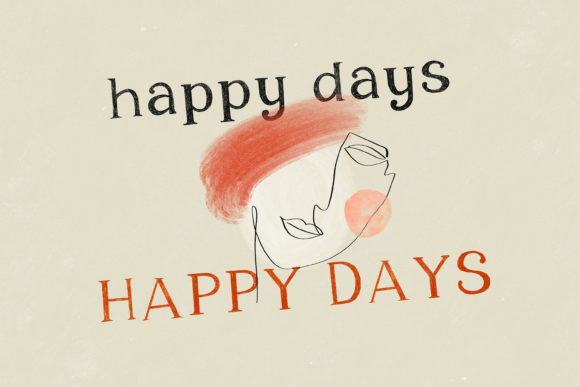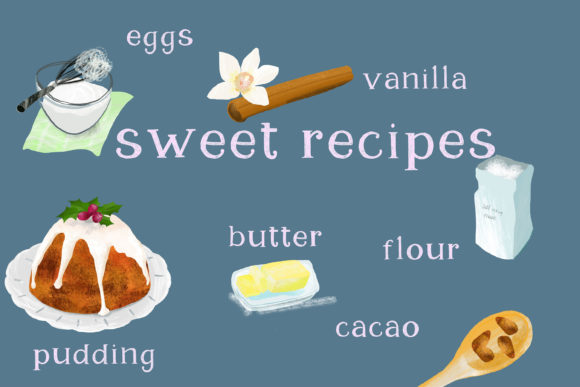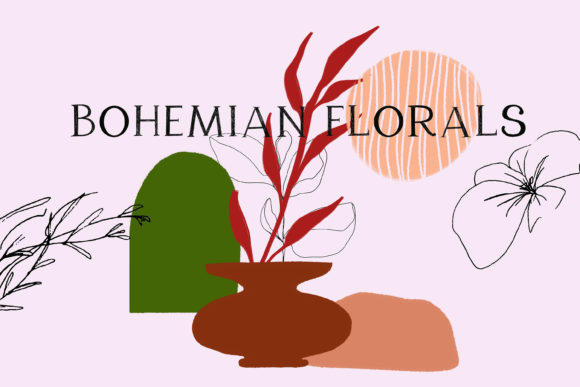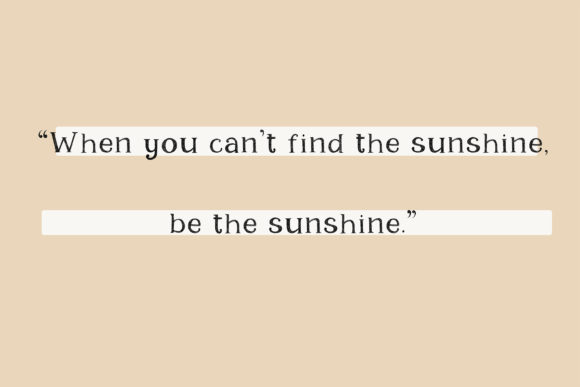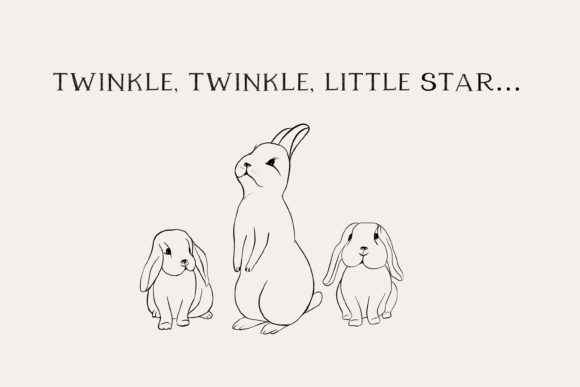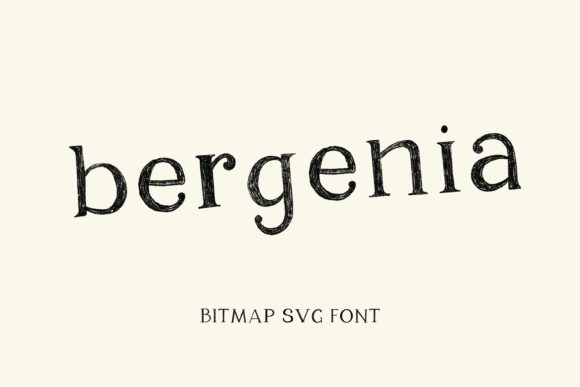
Bergenia Font: Elevate Your Design with a Cool and Assertive Serif
Bergenia is a modern serif font that exudes confidence and sophistication. With its simple yet striking design, this font is perfect for designers and crafters looking to make a statement. In this article, we’ll dive into the world of Bergenia, exploring its features, benefits, and uses, and why it’s a must-have for any creative project.
The Power of Bergenia
Bergenia is a cool and assertive serif font that instantly elevates your design. Its clean lines, precise curves, and balanced proportions create a strong visual effect that’s hard to ignore. Whether you’re working on a logo, branding, or marketing materials, Bergenia helps you make a lasting impression. Its unique character set and versatile style make it suitable for a wide range of applications, from digital media to print.
Key Features of Bergenia
- Simple yet striking design: Bergenia’s minimalist approach makes it easy to read and recognize, while its distinctive features add a touch of elegance.
- Cool and assertive: This font exudes confidence and sophistication, making it perfect for designs that require a strong personality.
- Serif style: Bergenia’s classic serif design adds a touch of tradition and authority to your text, making it ideal for formal and informal projects alike.
- Versatile: Use Bergenia for a wide range of applications, from digital media to print, and from logos to headlines.
Benefits of Using Bergenia
So, why choose Bergenia for your next project? Here are just a few benefits of using this amazing font:
- Instant appeal: Bergenia’s strong visual effect instantly makes your creation more appealing than others.
- Easy to read: Bergenia’s clean design and balanced proportions make it easy to read, even at small sizes.
- Unique character: Bergenia’s distinctive features add a touch of personality to your text, setting it apart from more generic fonts.
Who Can Use Bergenia?
Bergenia is perfect for a wide range of designers and crafters, including:
- Graphic designers: Use Bergenia for logos, branding, and marketing materials that require a strong visual effect.
- Digital artists: Add Bergenia to your digital art projects, such as illustrations, comics, and animations.
- Crafters: Use Bergenia for handmade projects, such as card making, scrapbooking, and journaling.
- Web designers: Incorporate Bergenia into your web designs for a unique and stylish look.
How to Use Bergenia
Using Bergenia is easy! Here are a few tips to get you started:
- Pair with other fonts: Combine Bergenia with other fonts to create a unique and stylish look.
- Experiment with sizes: Use Bergenia at different sizes to create visual interest and hierarchy.
- Play with colors: Try Bergenia with different colors to add personality and style to your design.
Bergenia is a powerful and versatile serif font that’s perfect for designers and crafters looking to make a statement. With its simple yet striking design, cool and assertive personality, and wide range of applications, Bergenia is a must-have for any creative project. Try Bergenia today and elevate your design to the next level!